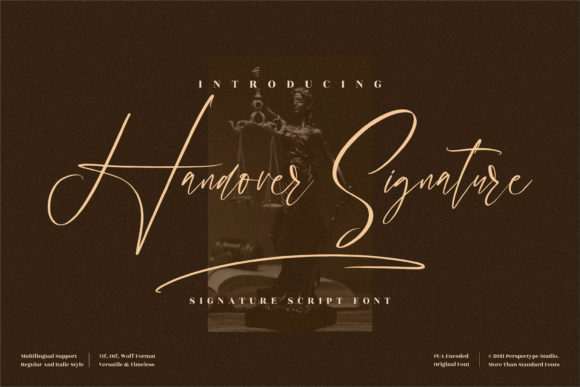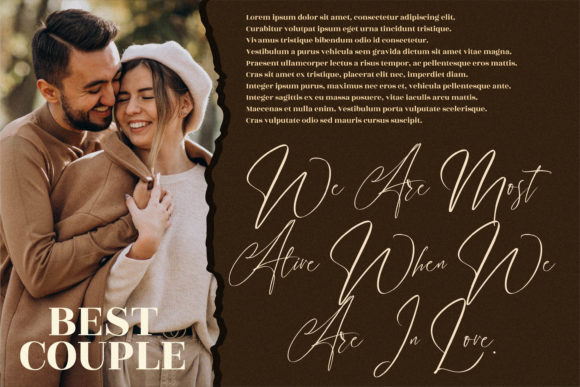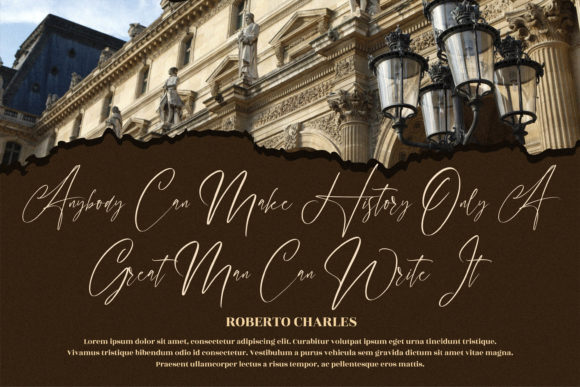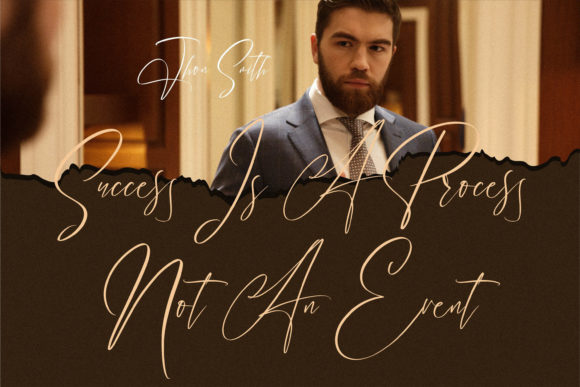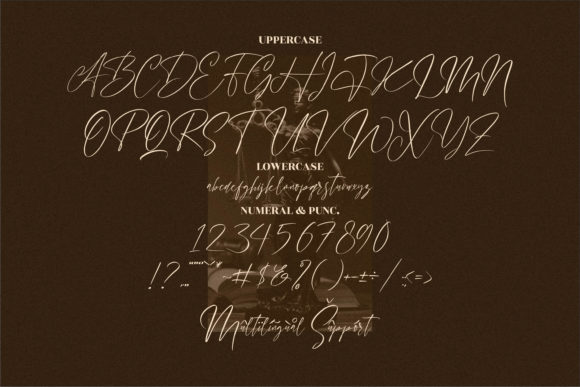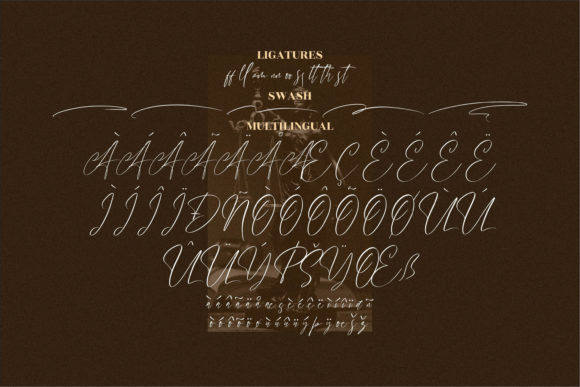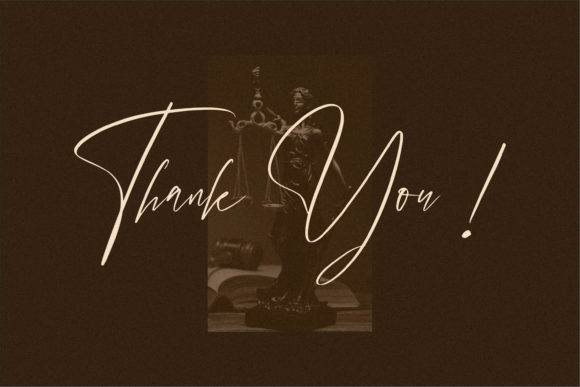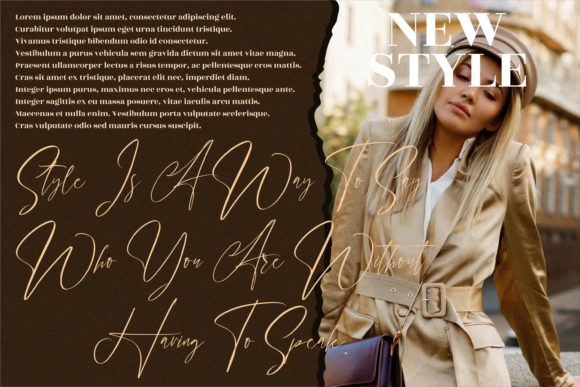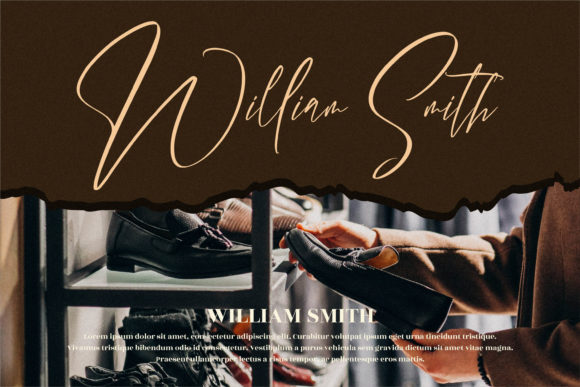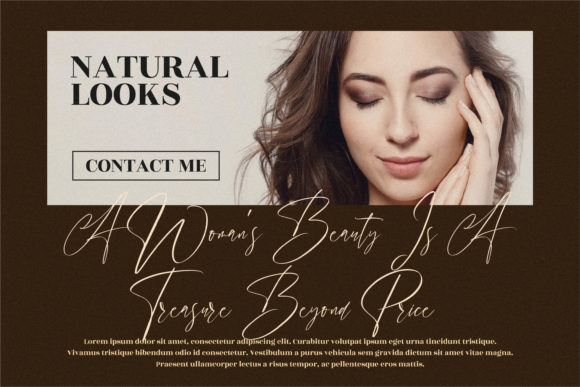
Handover Signature Font
About Handover Signature Font
Handover Signature is a beautiful light handwritten font that possesses a unique feel and creates a stunning impact. With its luxurious spark, this font elevates any design project you wish to create, adding a touch of luxury and sophistication.
The unique feel of Handover Signature sets it apart from other fonts, making it a standout choice for your design projects. Its light and delicate strokes create an elegant and refined appearance. This font adds a sense of personality and artistry to your designs, making them visually striking and captivating.
Handover Signature’s stunning impact stems from its attention to detail and craftsmanship. The carefully crafted letterforms and intricate curves make each character stand out. This font enhances the visual appeal of your designs, leaving a lasting impression on viewers.
Incorporating Handover Signature into your projects allows you to infuse them with a luxury spark. Its light and handwritten style adds a personal touch and creates a sense of exclusivity. Whether used for logos, headlines, invitations, or any other design element, Handover Signature font brings a touch of sophistication and refinement.
In summary, Handover Signature is a beautiful light handwritten font with a unique feel and a stunning impact. It adds a luxury spark to any design project, making it visually captivating and sophisticated. Embrace the unique style of Handover Signature and let it elevate your creations to new heights of beauty and elegance.